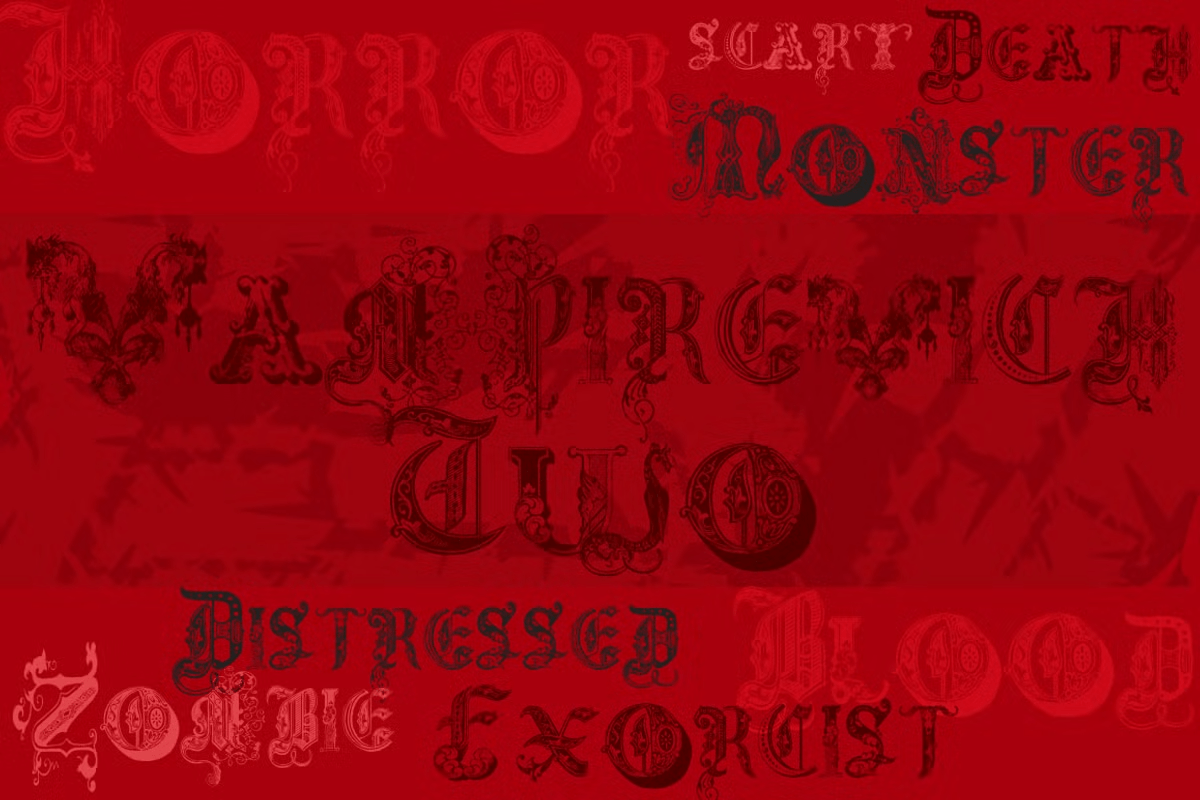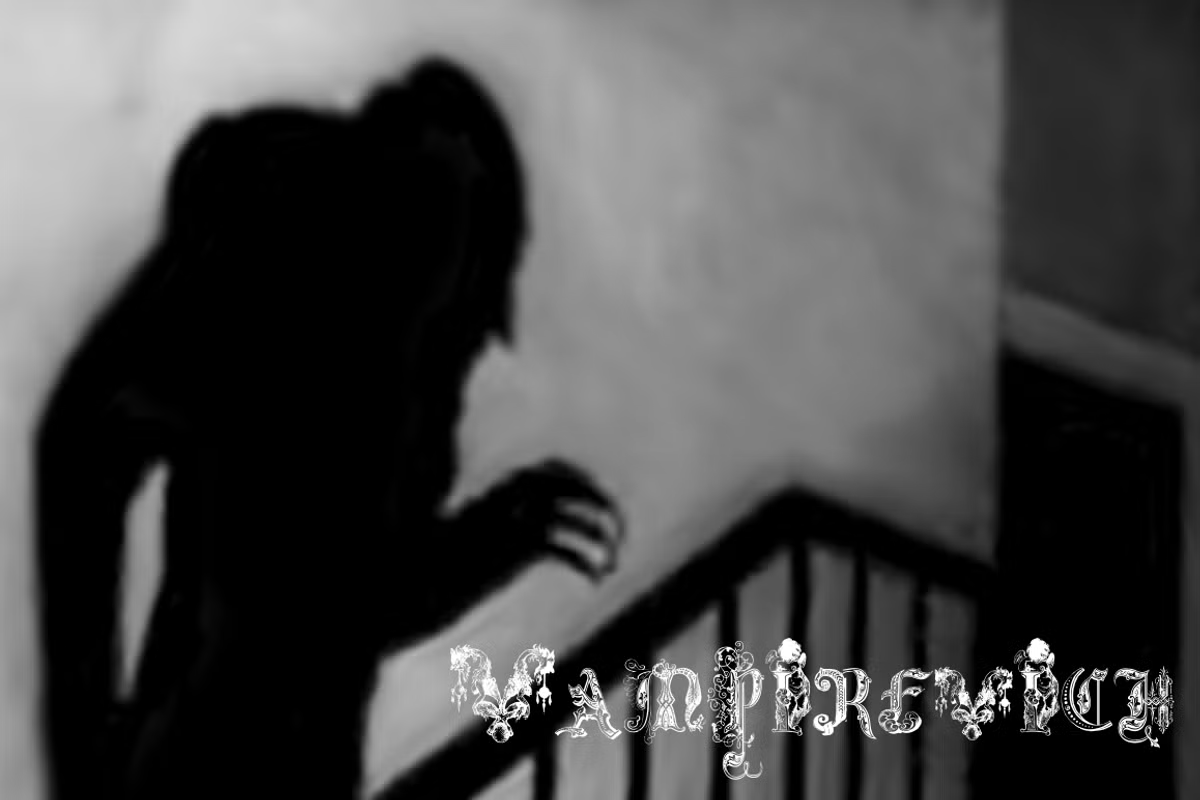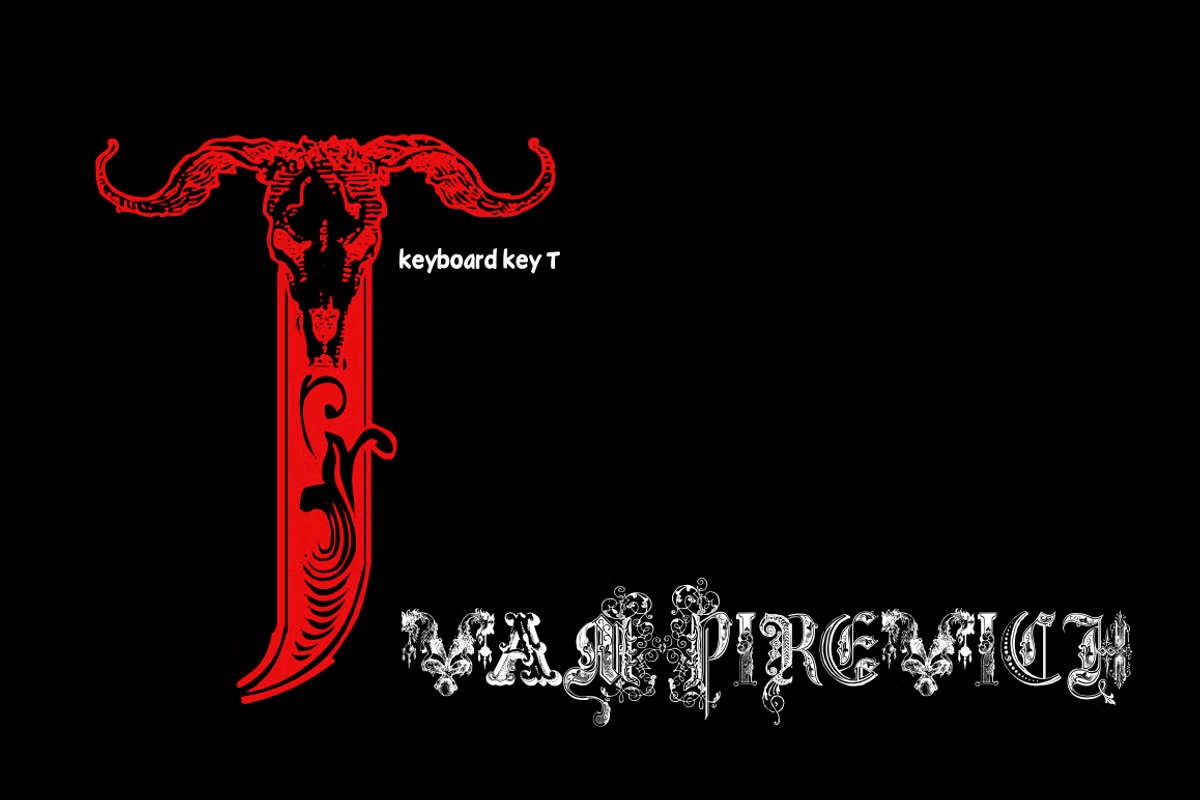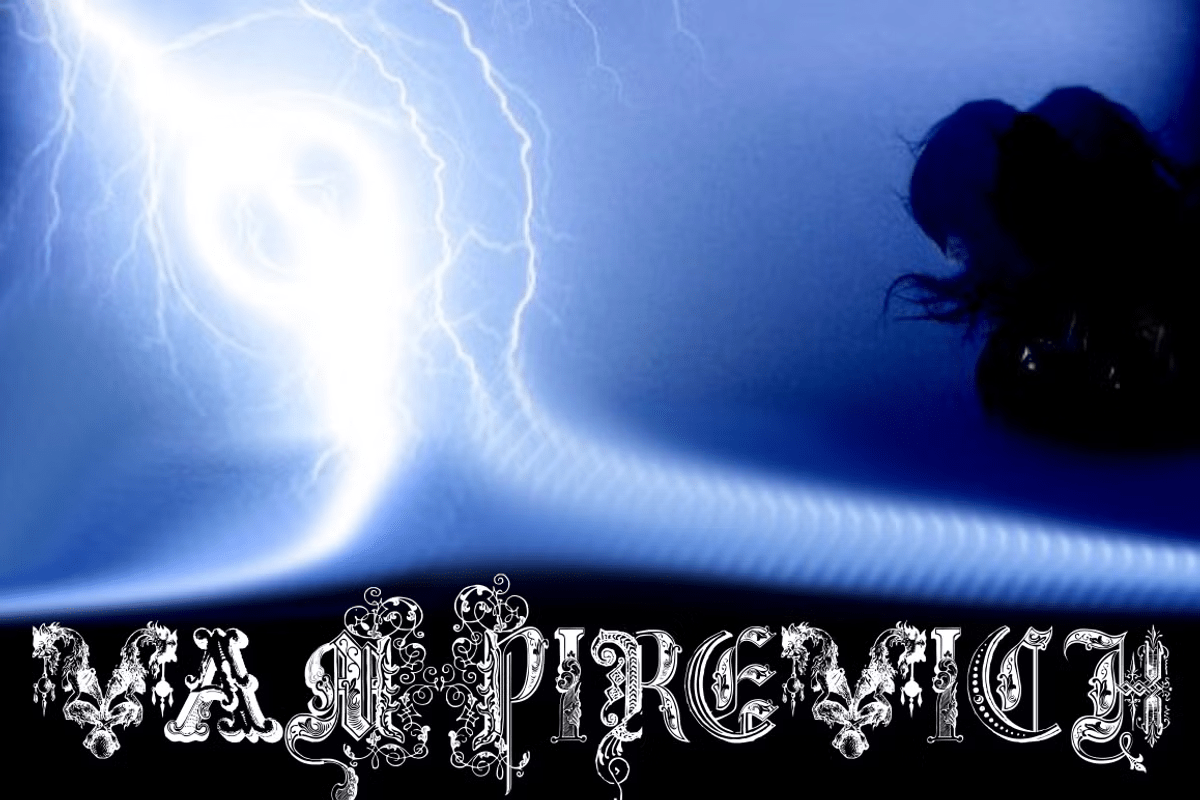
About Vampirevich
A mix and mash of various different decorative letter designs with a peculiar creepy feeling. Very diverse and great for header designs. Original creation of Paulo W, by Intellecta Design. A cheap pack with three fonts